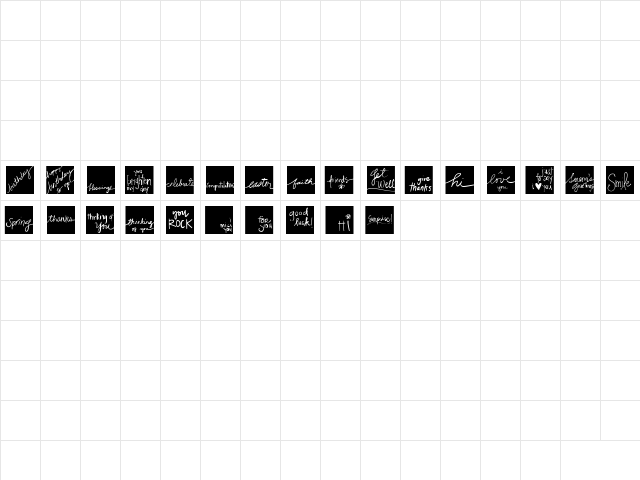
2peas boxed greetings Regular
| Foundry | Two Peas in a Bucket |
| Designer | Amy Grendell |
Design Context for 2peas boxed greetings Typeface
2peas boxed greetings is a composed and adaptable typeface that performs quietly and consistently across a wide range of design contexts.